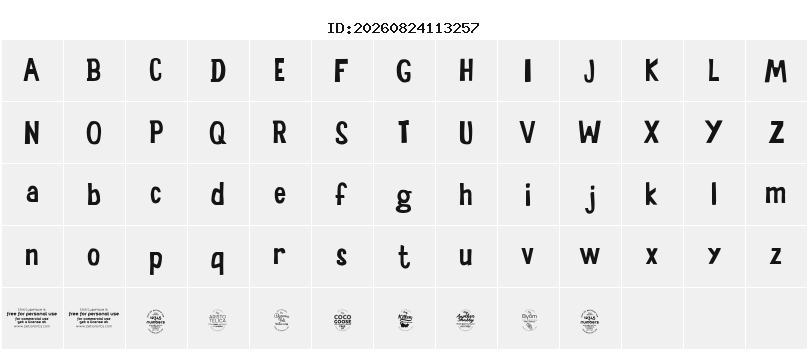
• Font Name: Sala de Fiestas
• Designer: Studio Kmzero
About Sala de Fiestas.ttf
Sala de Fiestas.ttf is a modern, elegant sans-serif font designed for ultimate readability and visual harmony. Perfect for branding, headlines, web design, and print materials.